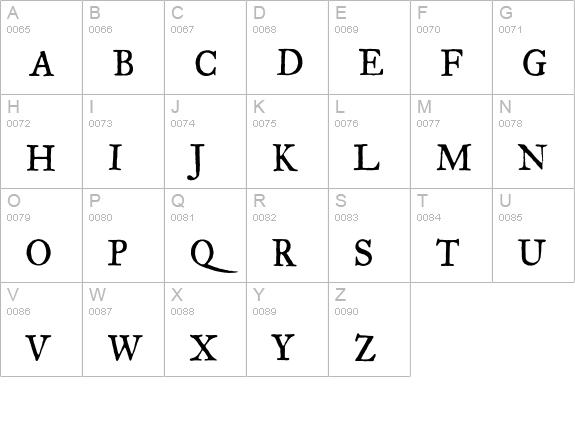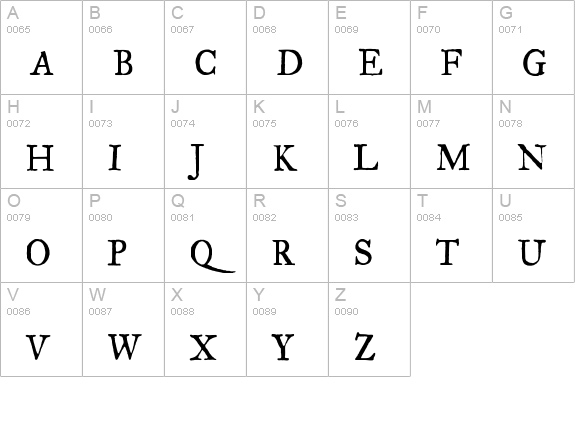
Historical-FellTypeRoman Font Details
Historical-FellTypeRoman is a classic and elegant font that harks back to a bygone era of sophistication and refinement. With its timeless serif design, this font exudes a sense of history and tradition, making it perfect for projects that require a touch of vintage charm. What sets Historical-FellTypeRoman apart is not just its aesthetic appeal, but also the fact that it is available for free download at FontsMarket.com. This means that you can easily access and use this beautiful font for all your creative endeavors without any cost involved. Whether you are working on a historical publication, a vintage-inspired design project, or simply want to add a touch of old-world flair to your work, Historical-FellTypeRoman is the perfect choice. Download it for free today and bring a touch of timeless elegance to your designs.